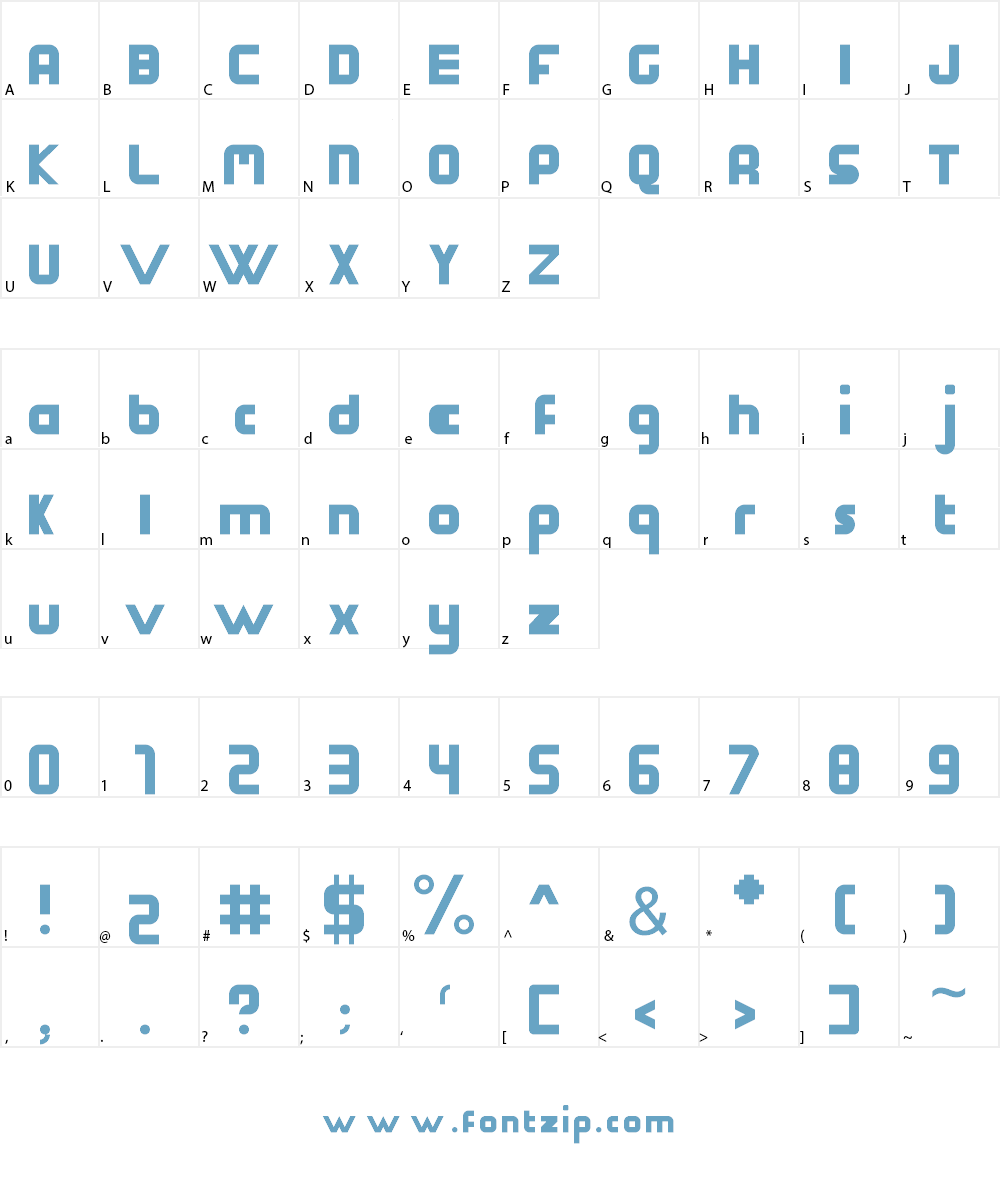
I was inspired by the design of the FontStruct™ logo, the name "fontstruct" stylised and written in my font. I imagine many people must have had the same ideas as me, but I would like to say that I have cloned, or attempted to clone, any font I know of.